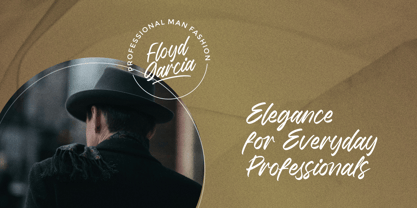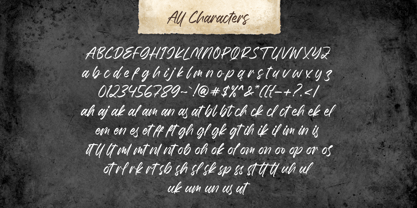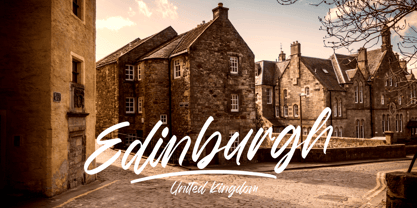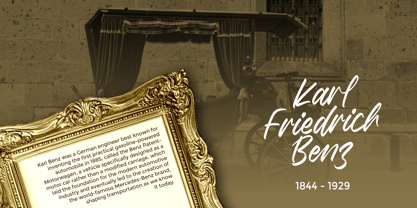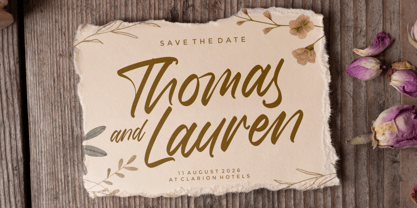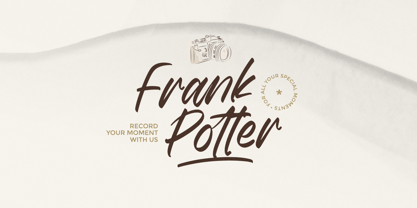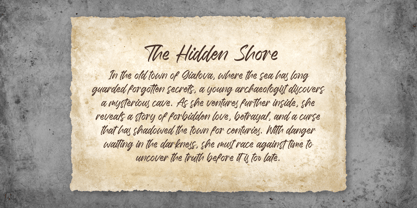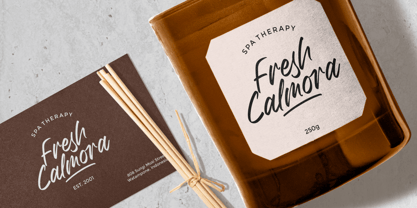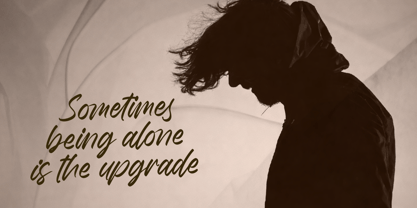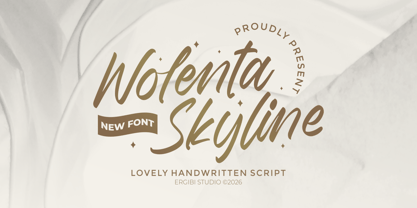
Wolenta Skyline
by Ergibi Studio
The Wolenta Skyline Font Family was designed by Riyadh Rahman and published by Ergibi Studio. Wolenta Skyline contains 1 styles. More about this family
Wolenta Skyline is a lovely handwritten script font that combines elegance with a natural, flowing rhythm. Its smooth curves and well-balanced strokes create a soft yet confident appearance, making it perfect for designs that aim to feel warm, refined, and visually appealing. Ideal for branding, logos, invitations, packaging, and social media content, this font brings a graceful and modern handwritten touch. Each letter carries a subtle charm and fluid movement, adding personality and sophistication to any creative project. if you have any questions, don’t hesitate to contact us Ergibi Studio
Designers: Riyadh Rahman
Foundry: Ergibi Studio